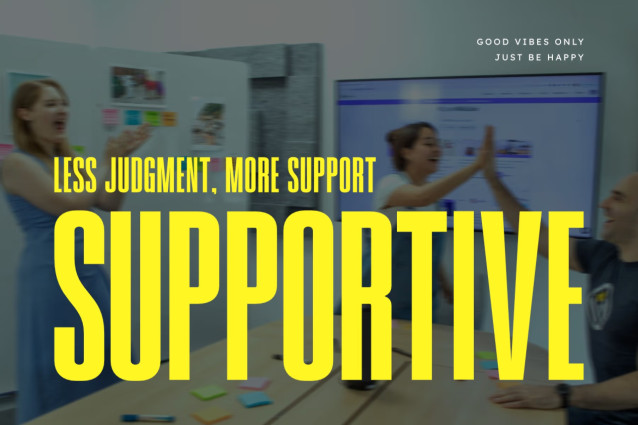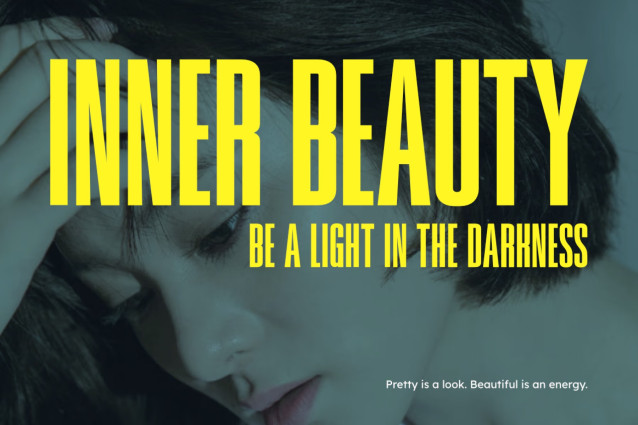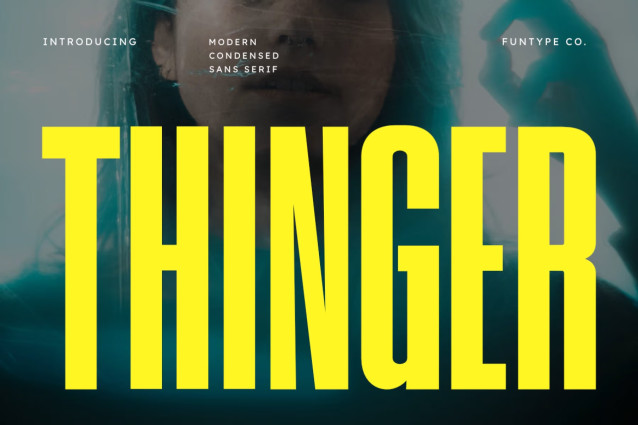
Thinger Font
Thinger is a bold, high-impact modern condensed sans serif display font designed for maximum visibility and a clean, contemporary aesthetic. Its solid, narrow letterforms and powerful structure make it an exceptional choice for dominant headlines, professional branding, social media graphics, and large-scale poster designs.
This versatile all-caps typeface ensures your message is delivered with confidence and clarity, providing a sleek yet authoritative look that is perfect for any modern creative project across digital and print media.